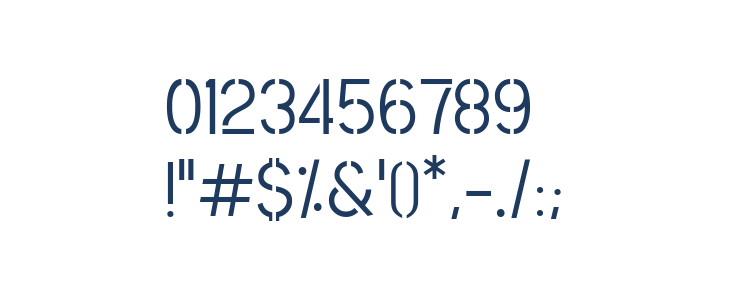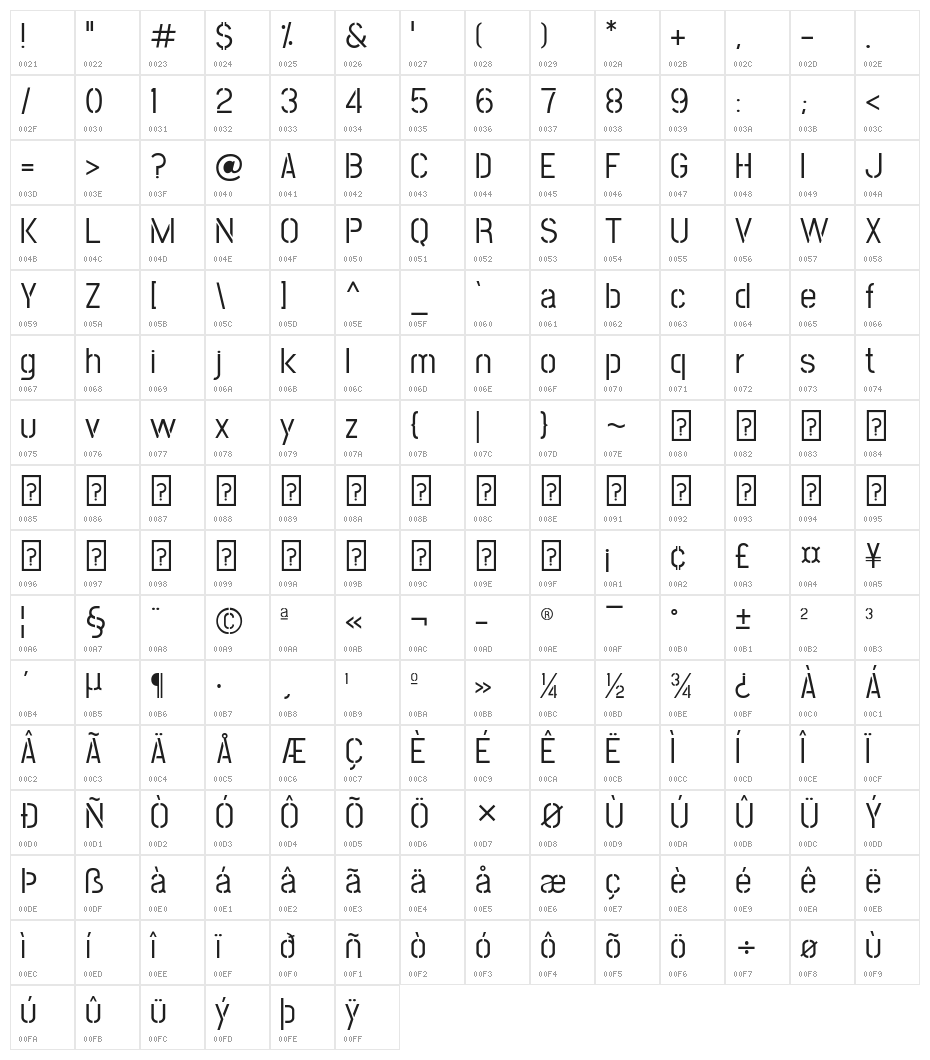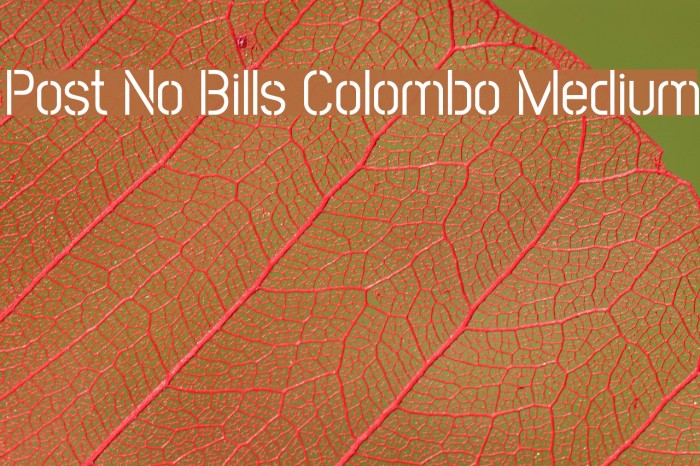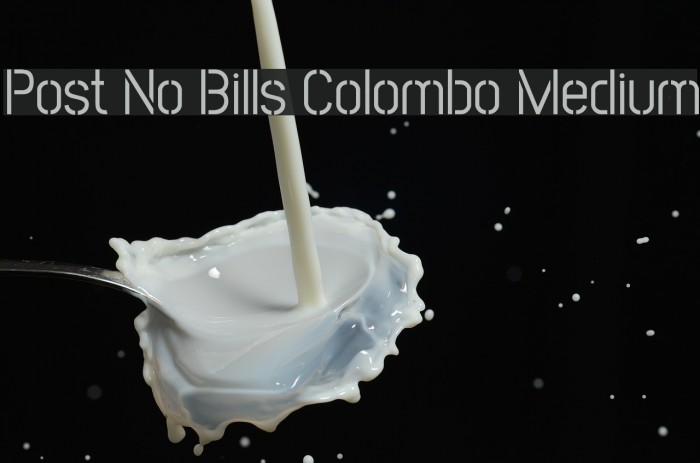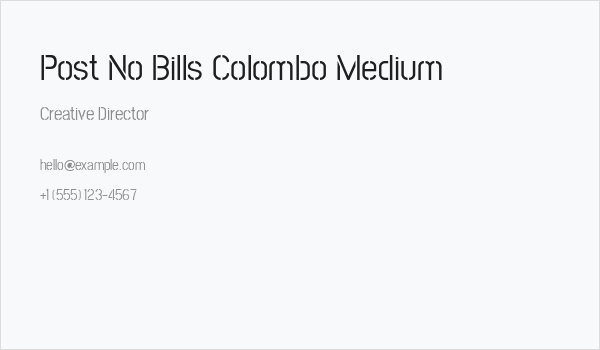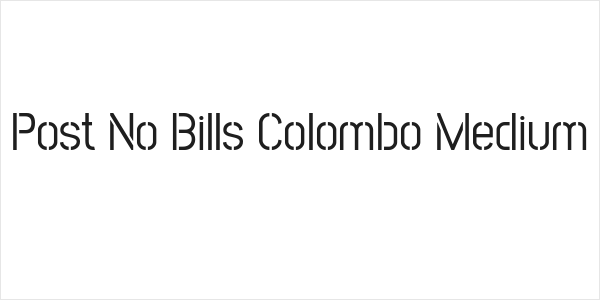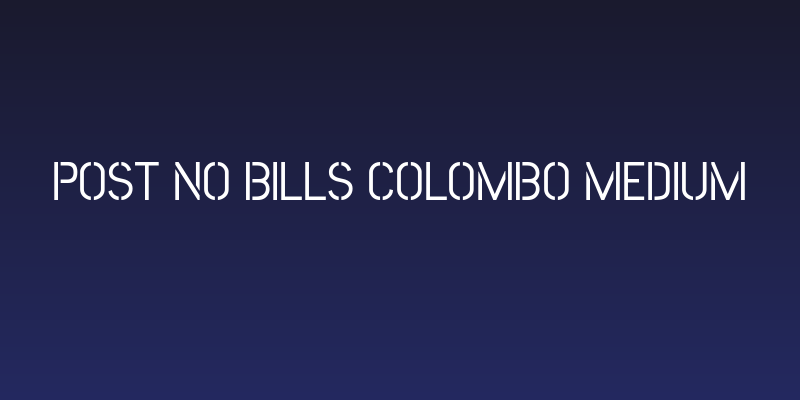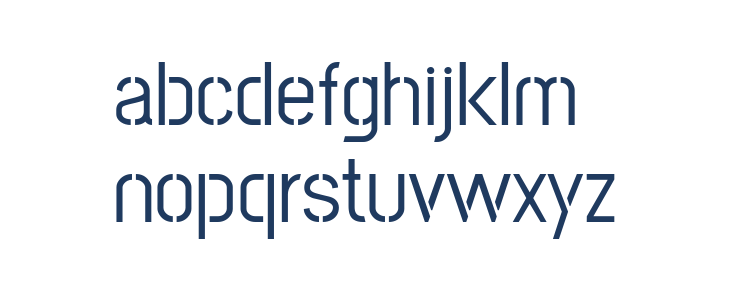
Post No Bills Colombo Medium Font
Post No Bills Colombo Medium Description
This font features a modern, geometric sans-serif style with a distinct, clean appearance. The characters are constructed with a consistent stroke width, giving it a uniform and balanced look. The uppercase and lowercase letters maintain a similar height ratio, enhancing readability. The font's design incorporates subtle curves and sharp angles, creating a contemporary aesthetic. Its minimalistic approach makes it versatile for various design applications. The numerals and special characters are crafted with the same attention to detail, ensuring a cohesive visual experience across all glyphs.